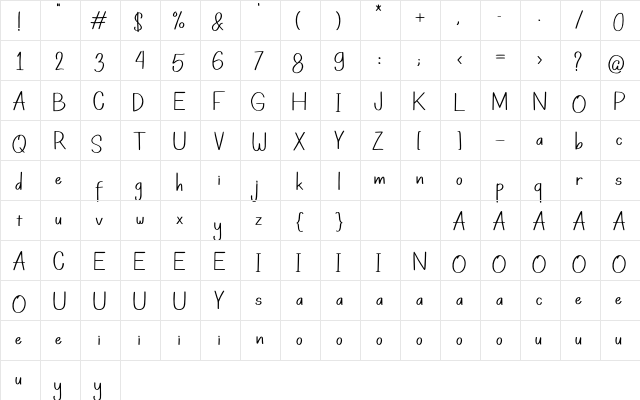
Piko Regular
| Foundry | Rustype |
| Designer | Rifky Naufaldy |
Design Context for Piko Typeface
Piko offers clean, dependable letterforms without strong stylistic allegiance, making it a practical choice for designers who need flexibility.